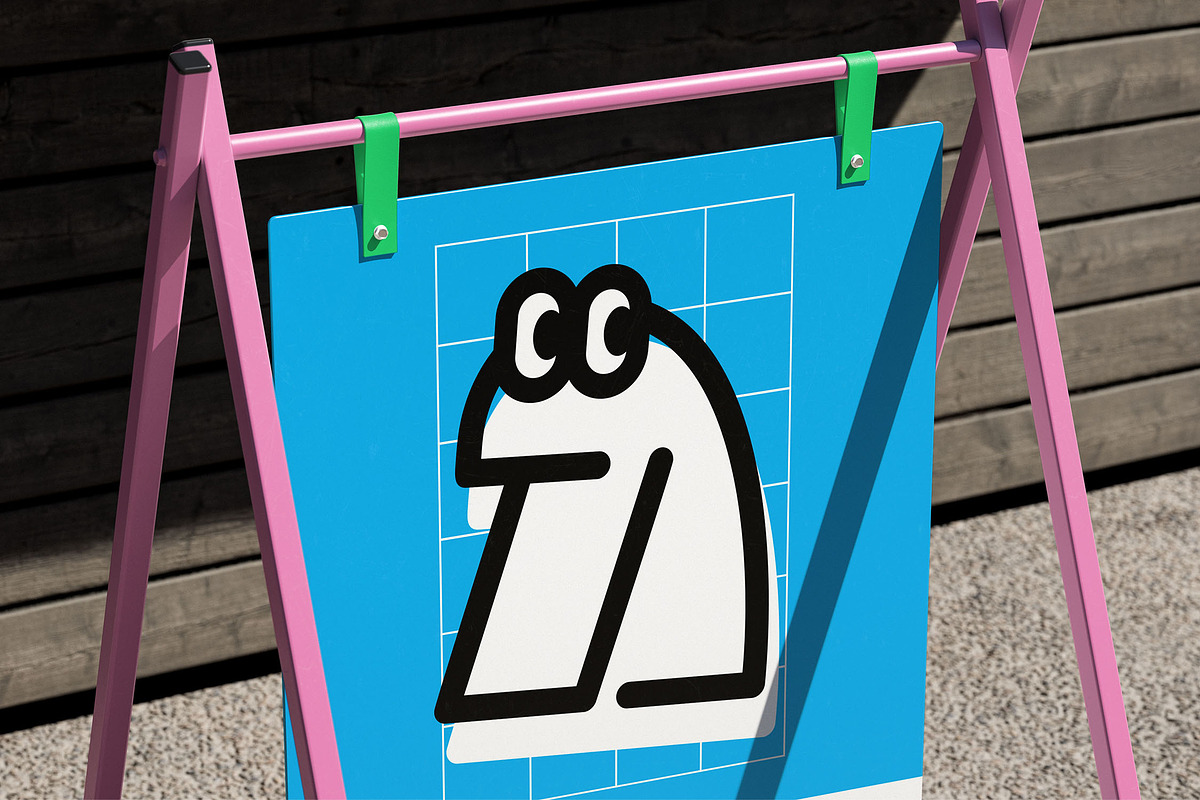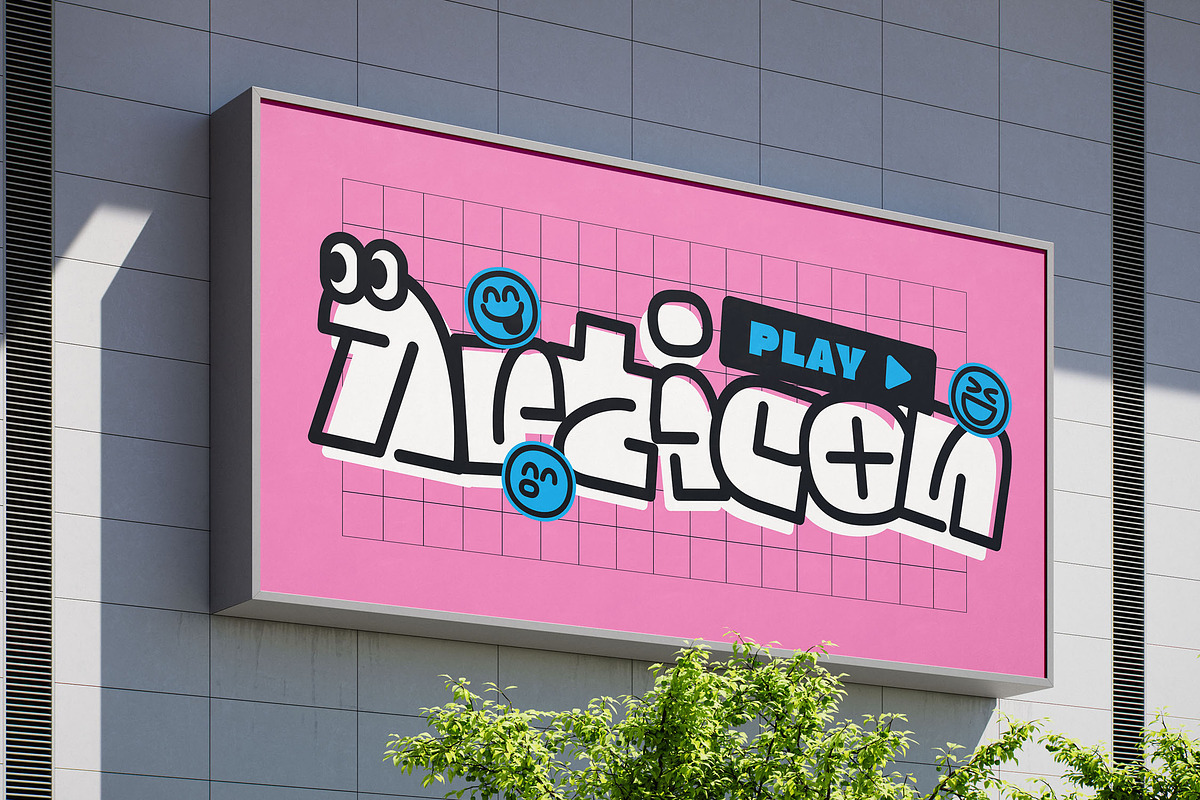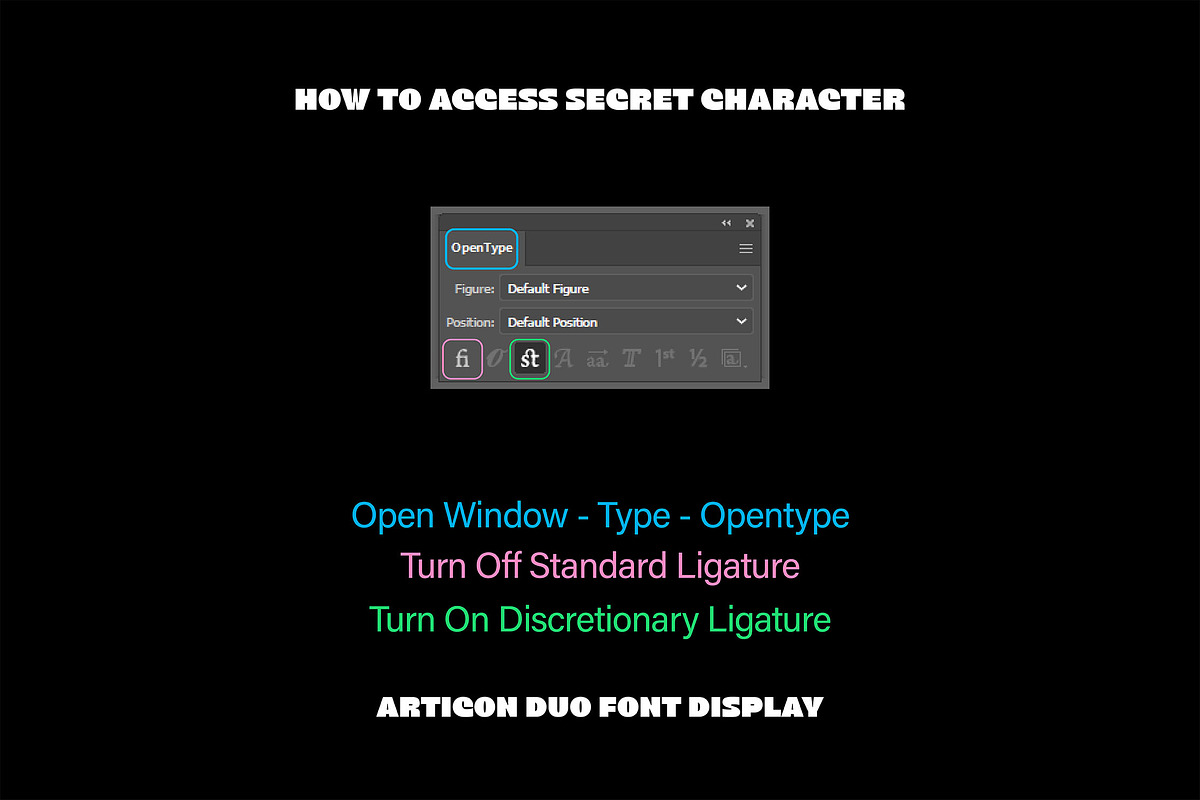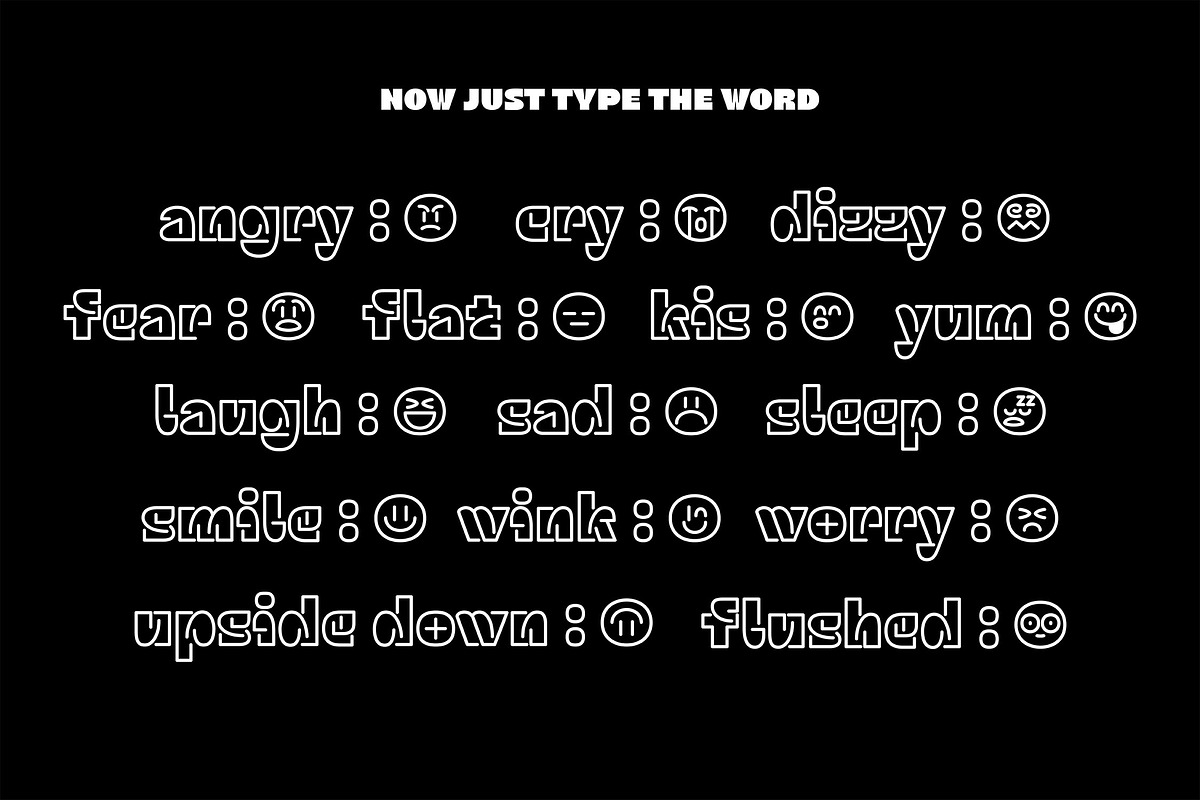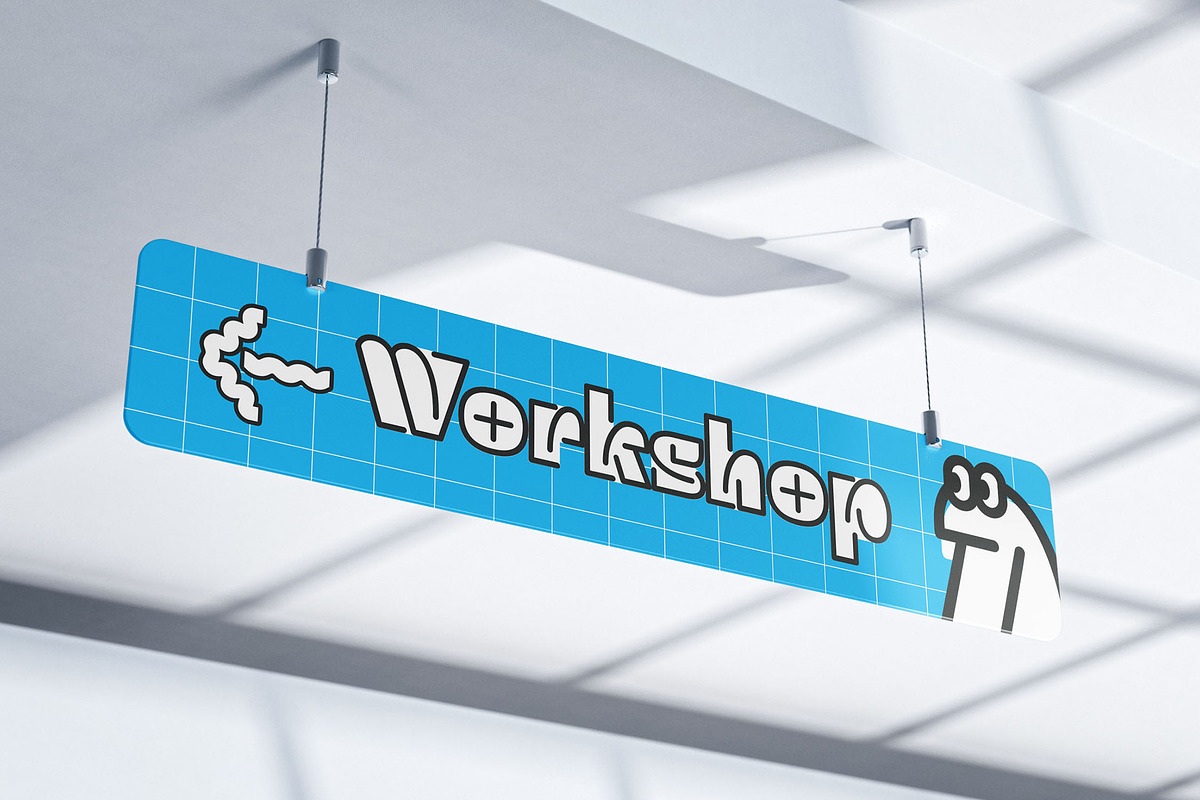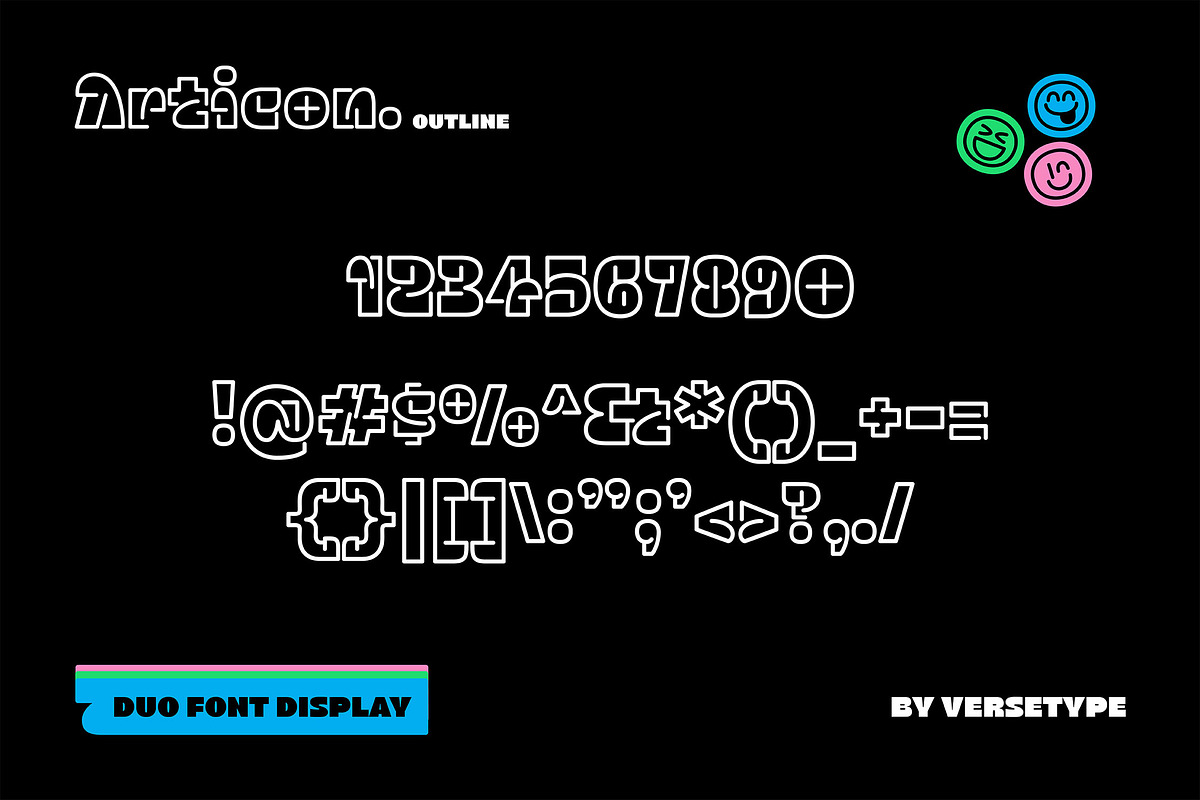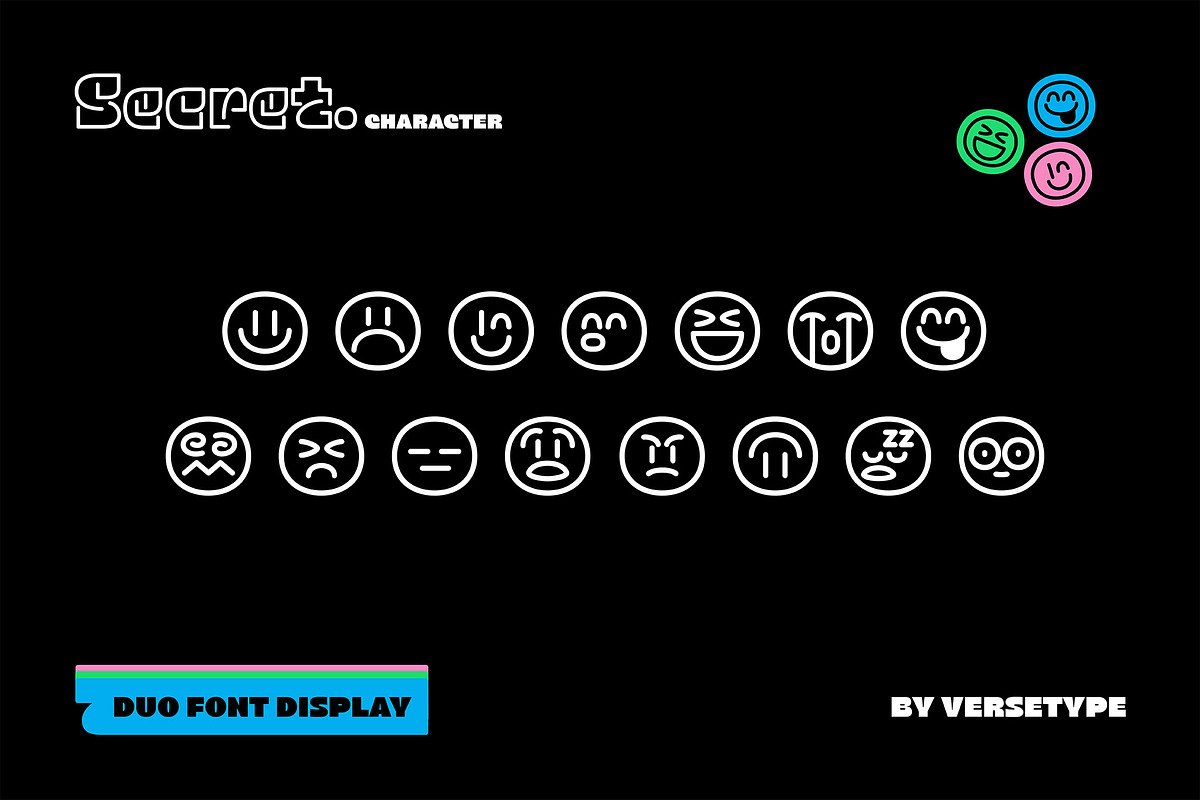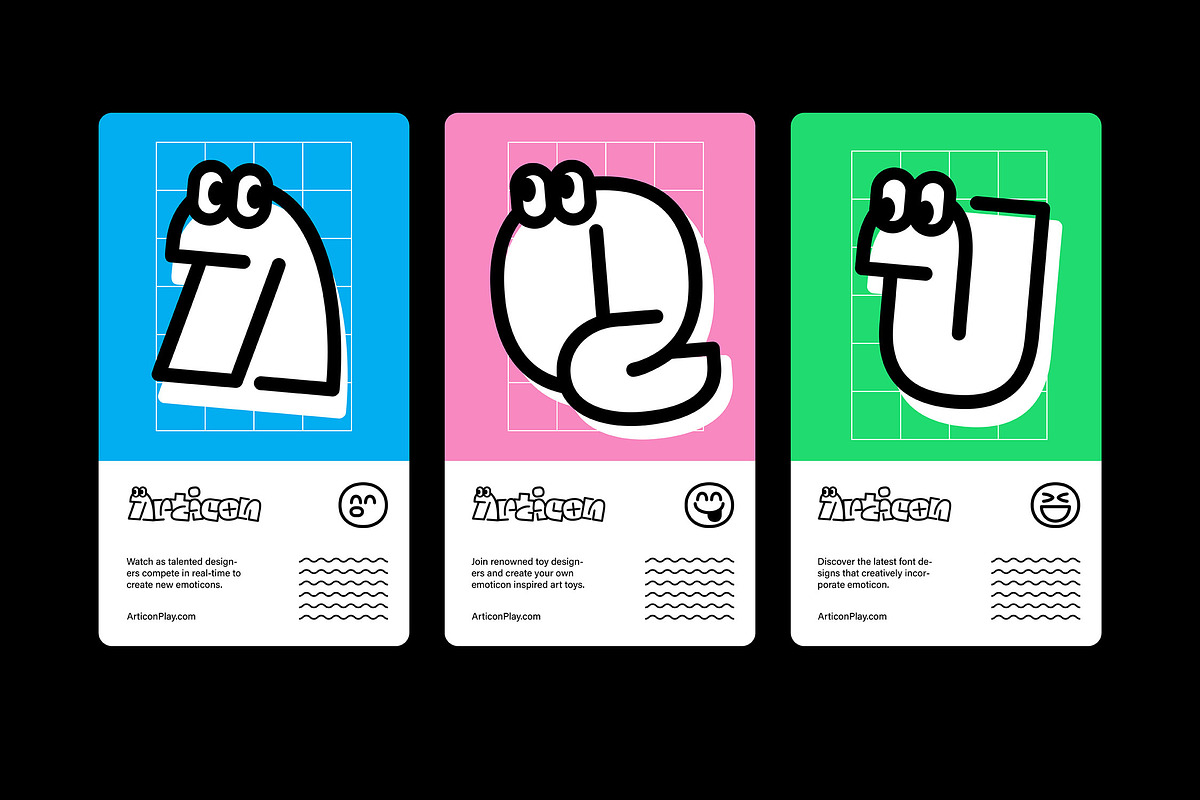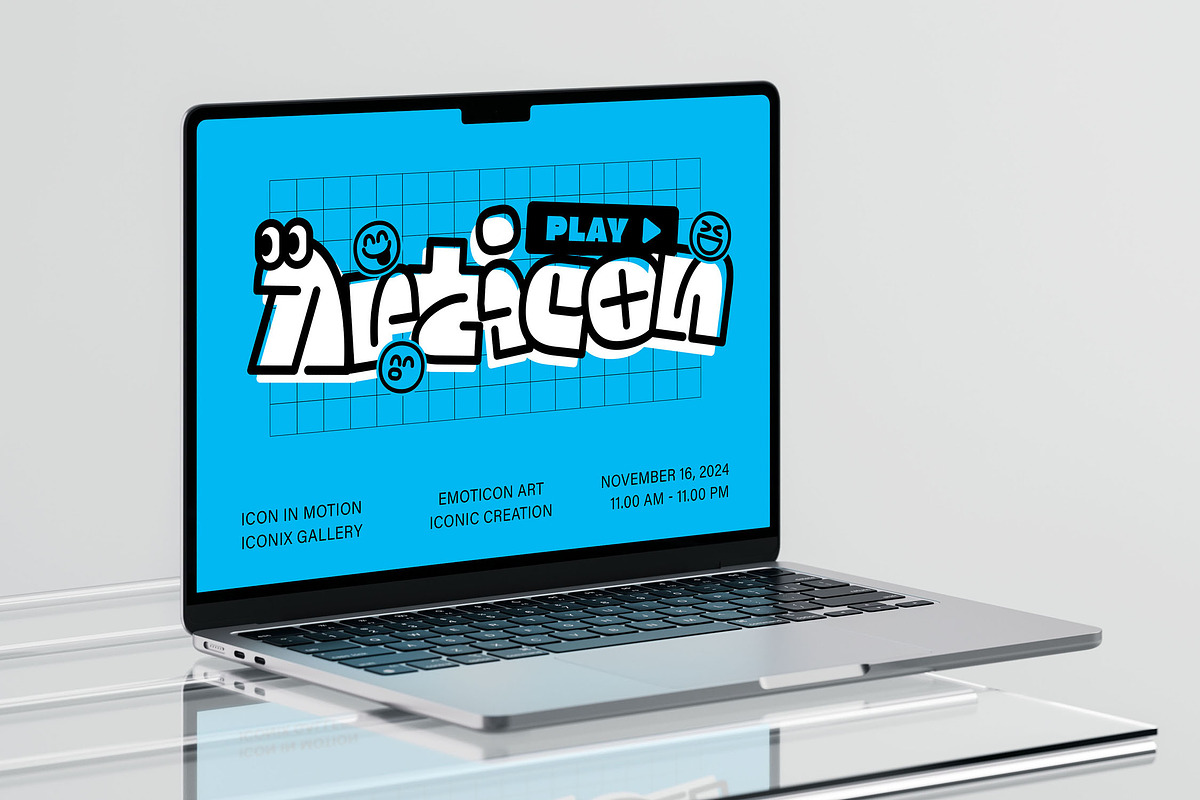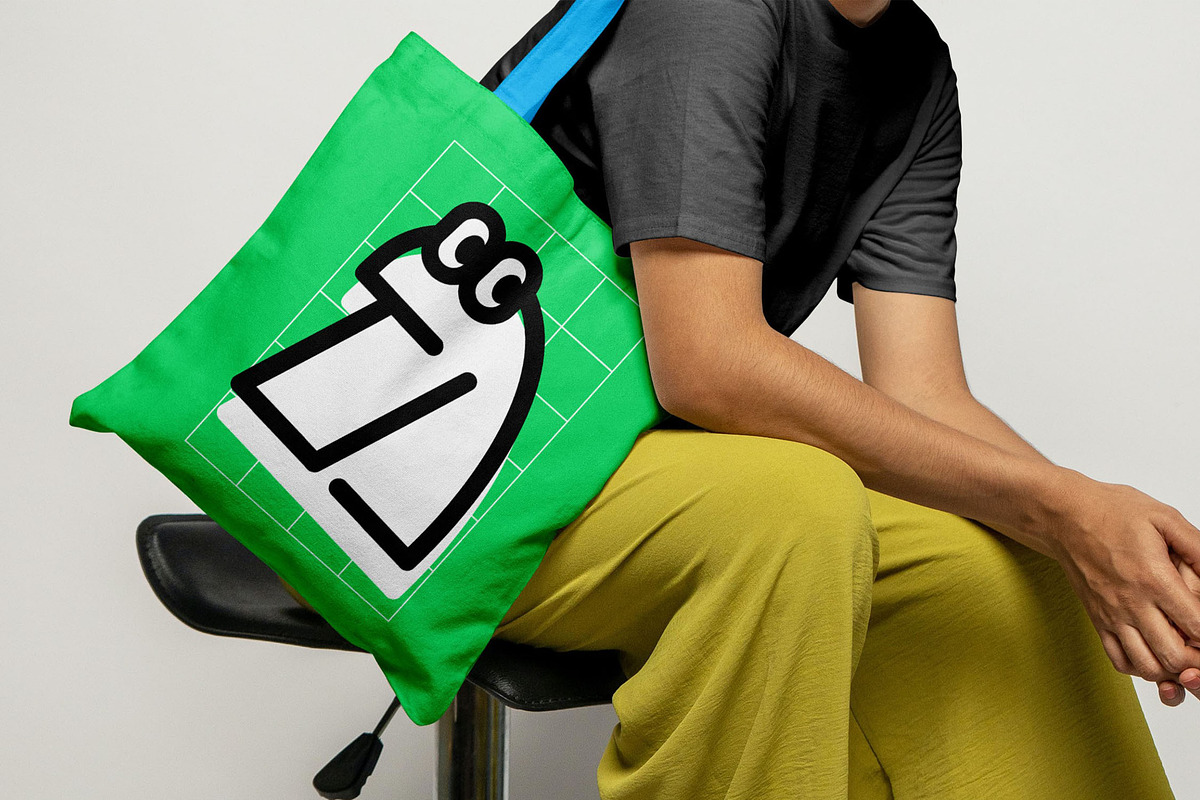
Articon Duo Font
Articon is a versatile font with two distinct styles: Outline and Solid. Combining geometric precision with a hand-drawn touch, Articon features unique ligature combinations that form expressive emoticons. This innovative approach makes Articon not just a font but a creative tool for visually engaging text.
Articon is perfect for branding and logo design, where its distinctive styles can create memorable and unique brand identities. It also excels in social media and marketing materials, offering eye-catching graphics that engage your audience. Additionally, Articon is ideal for creative projects and illustrations, adding a unique, personal touch that makes your designs stand out with both style and character.